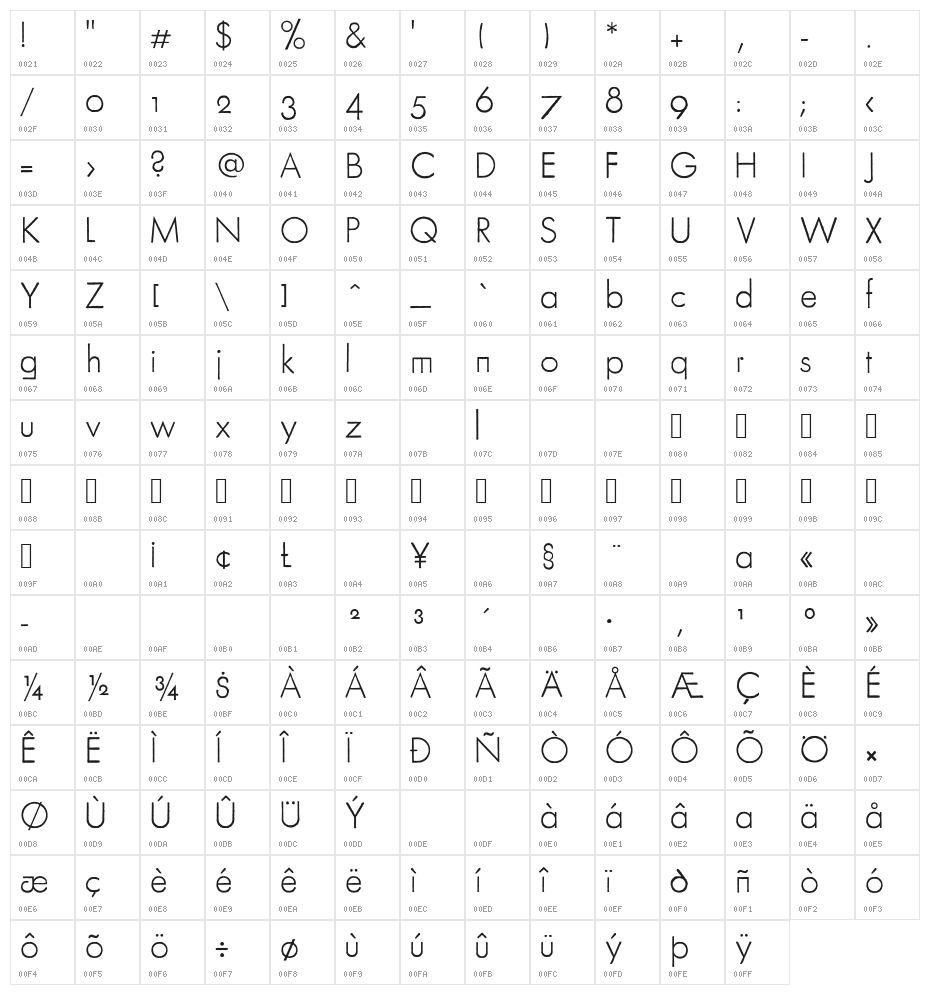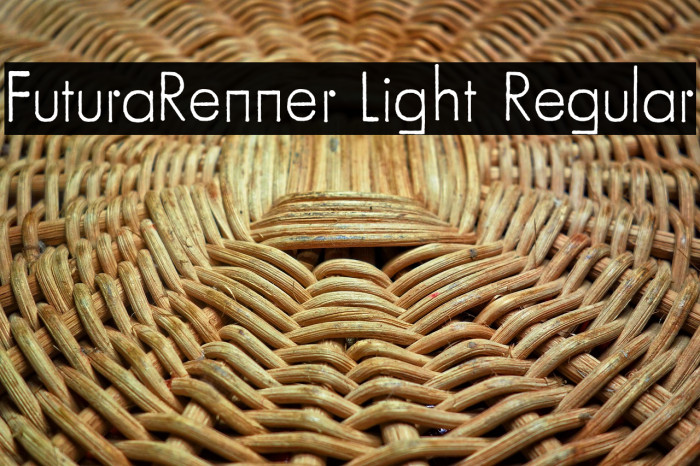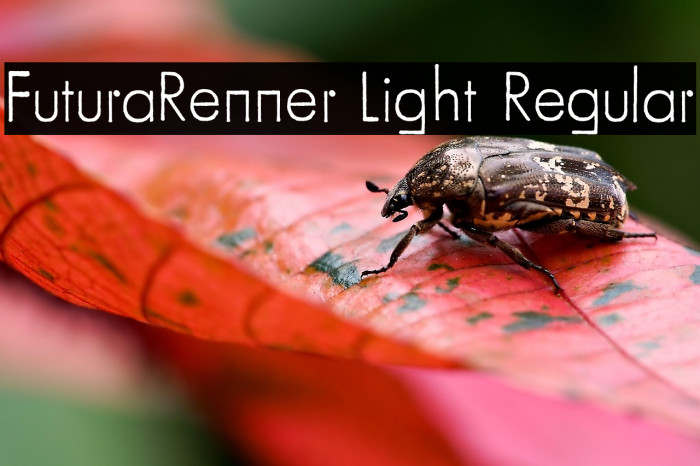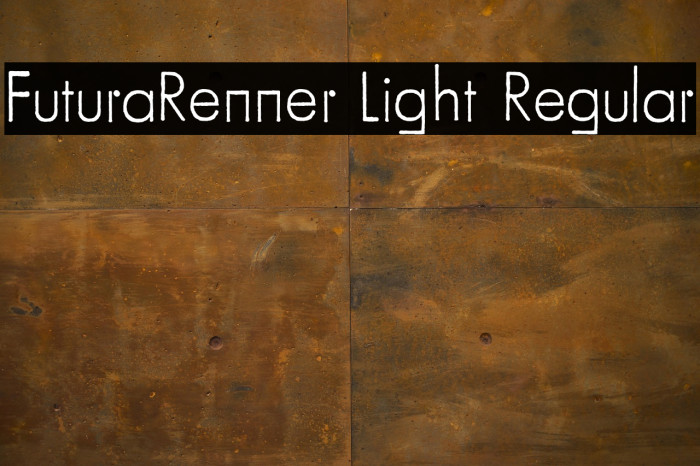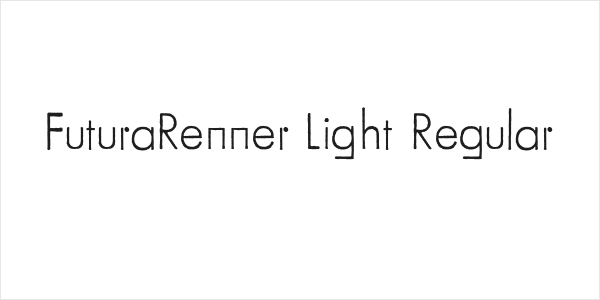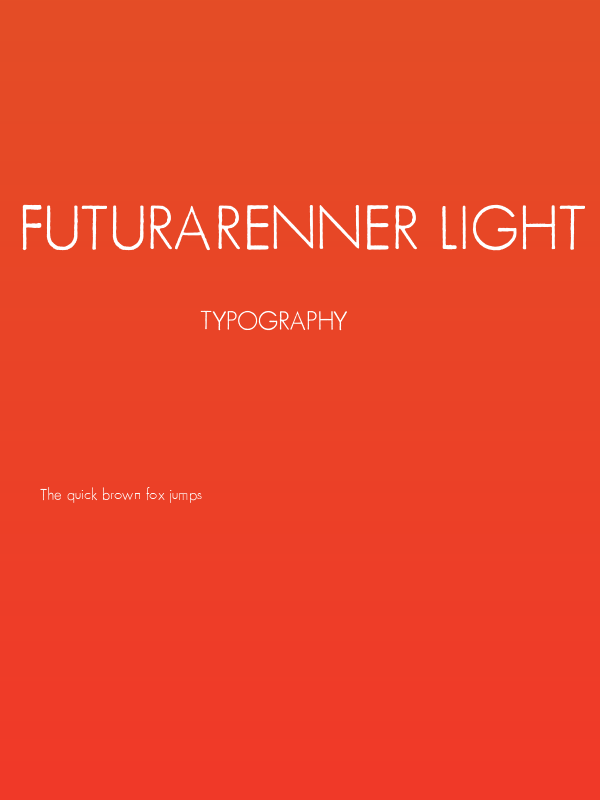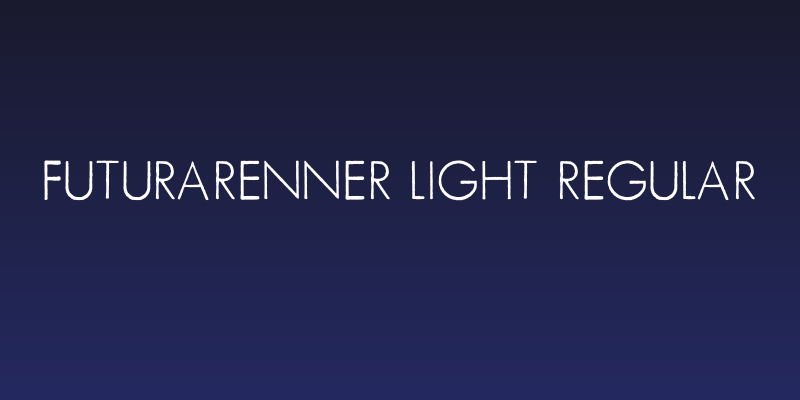
FuturaRenner Light Regular Font
FuturaRenner Light Regular Description
This font features a clean, geometric design with a modern aesthetic. The characters are constructed with simple lines and curves, creating a sense of balance and harmony. The uppercase letters are uniform in height, while the lowercase letters maintain a consistent x-height, enhancing readability. The numerals are proportional, aligning well with the overall style. Special characters are distinct and easily recognizable, adding versatility to the font. The overall appearance is sleek and minimalistic, making it suitable for a variety of design applications.
| Proposed Projects | Ideal for branding, advertising, editorial design, and digital interfaces. |